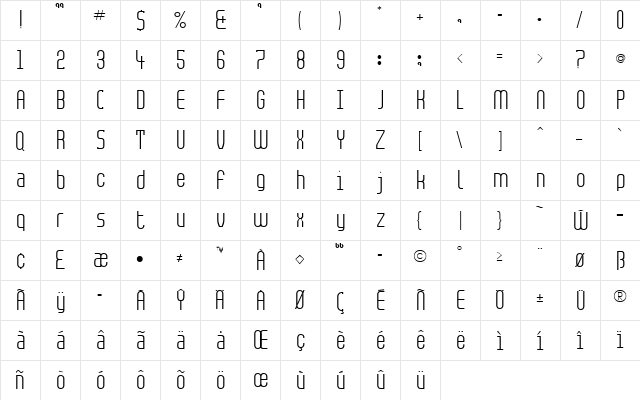
Mekanika Regular
Design Context for Mekanika Typeface
Mekanika offers clean, dependable letterforms without strong stylistic allegiance, making it a practical choice for designers who need flexibility.